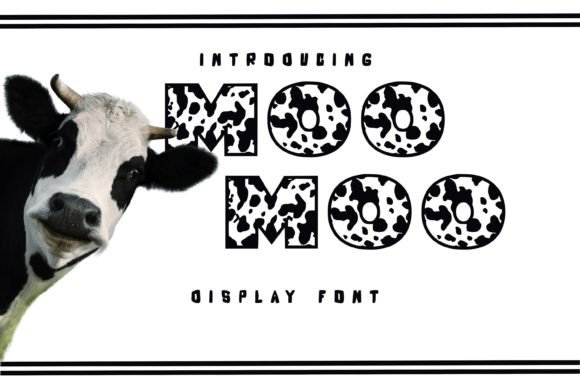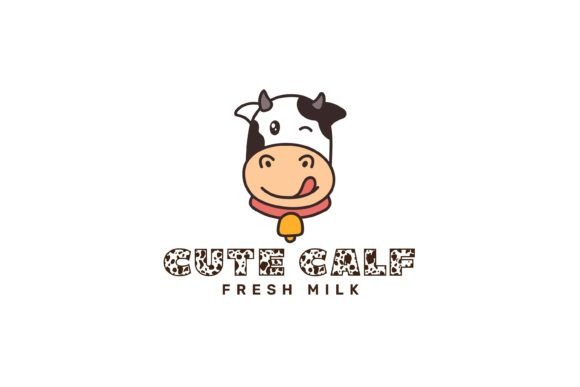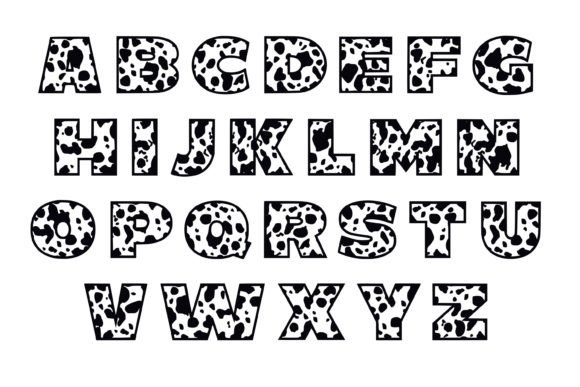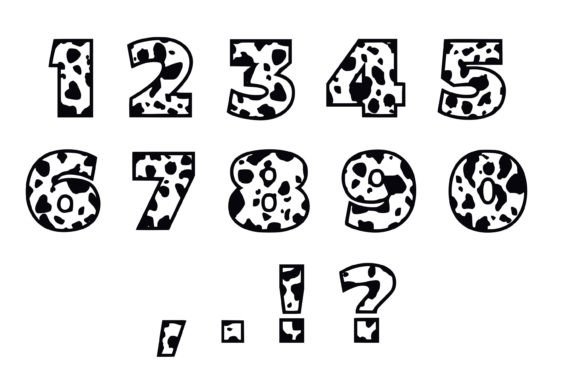
Moo Moo Font
About the Moo Moo Font
The wait is over! The incredible Moo Moo Font is now available for your design toolkit. Moo Moo is an adorable decorative display font with a cow pattern. It is perfect for classroom decorations, school projects or anything that needs a fun and playful touch.
Moo Moo’s playful nature makes it ideal for children’s books, branding for playful products, or eye-catching posters where a fun, memorable aesthetic is key. It excels in headlines and short, impactful text, adding a whimsical touch to packaging or social media graphics. However, its decorative style is unsuitable for body text or UI elements; its low readability makes it inappropriate for longer passages or applications requiring clear legibility.
Pairing Moo Moo with a clean sans-serif font like Open Sans for body text creates a strong contrast, balancing its playful energy with clear readability. Alternatively, a classic serif like Garamond adds sophistication and visual weight, creating a charming juxtaposition of styles. Avoid pairing it with other highly decorative fonts, as this could create visual overload.
The font’s overall personality is undeniably fun and approachable, conveying a sense of childlike wonder and approachability. This makes it particularly suitable for brands targeting younger audiences or those wishing to project a friendly, lighthearted image.
Moo Moo Font Usage Examples
Moo Moo Font Example